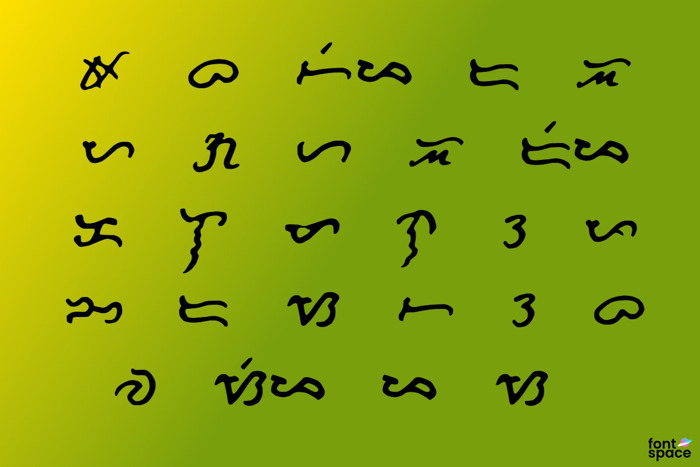
Bonida Font
This is based on the glyphs of 16th century baybayin handwriting. You are free to use it for whatever purpose it may serve.
almost 5 years agodifferent fonts but the same script
almost 5 years agoHow do you type "NG"? In example I typed the word "Lamang" it will not view the proper font for "NG" but N and G instead.
4 years agob17 po ba to sir?
4 years agoUpang lumabas ang /Nga/, pindutin lamang ang q
4 years agoB17 ito
What is the difference between regular & bonda style? Are they different scripts or different forms of the same font?